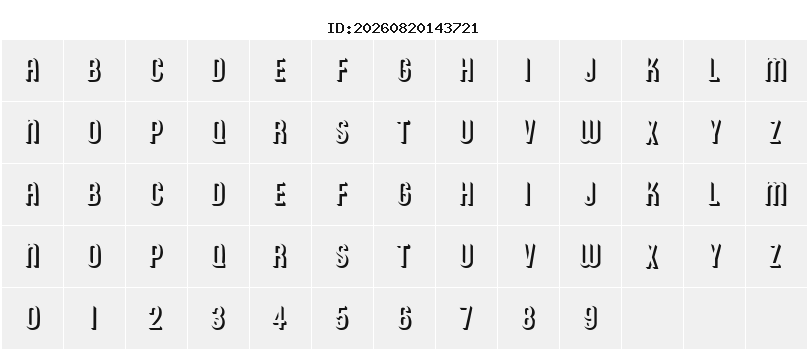
Shadow 4 Preview
• Font Name: Shadow 4
• Font ID: Altsys Fontographer 3.5 RoundedRelief Regular
• Full Font Name: Shadow 4
About Shadow 4.ttf
Shadow 4.ttf is a modern, elegant sans-serif font designed for ultimate readability and visual harmony. Perfect for branding, headlines, web design, and print materials.